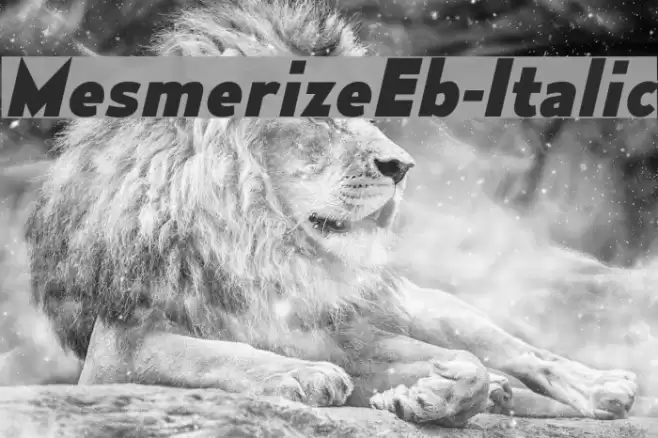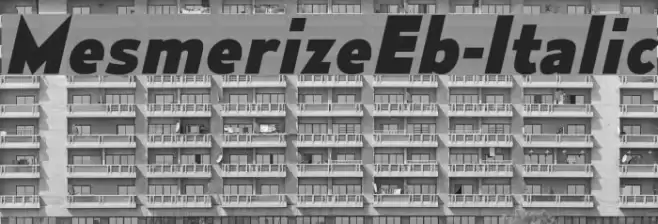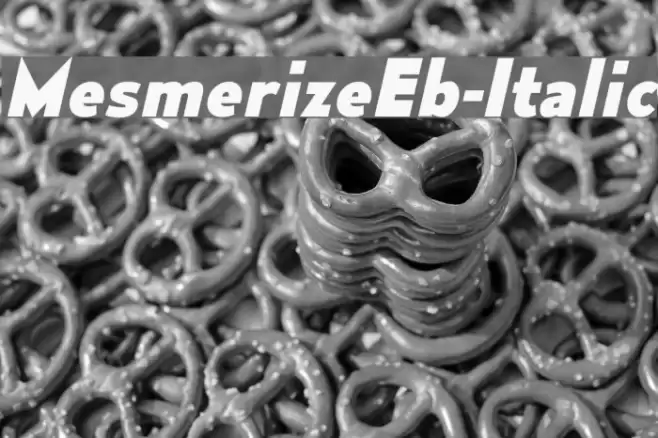
MesmerizeEb-Italic Font
MesmerizeEb-Italic Description
This font features a bold and dynamic italic style, characterized by its strong, slanted letterforms that convey a sense of movement and energy. The uppercase and lowercase letters maintain a consistent weight, providing a cohesive look across the alphabet. The numerals are equally bold, ensuring readability and impact. Special characters are included, offering versatility for various text compositions. The overall design is modern and assertive, making it suitable for projects that require a strong visual presence.
A bold, italic font with dynamic slanted letterforms and a modern style from Uncategorized fonts.
- Proposed Projects: Ideal for branding, advertising, headlines, and any project that requires a bold, impactful typeface.
- Use Case: Headlines, Logos, Advertising